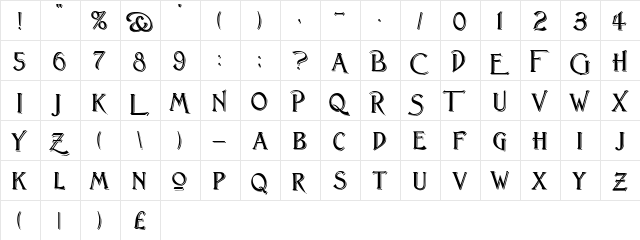
Lightfoot Shadowed Regular Font Preview
Lightfoot Shadowed Regular
Lightfoot Shadowed Regular Font Details
Design Context for Lightfoot Shadowed Typeface
Lightfoot Shadowed brings ornamental detail and strong personality to headlines and identities, where visual impact matters more than quiet functionality. The delicate stroke weight brings airiness and refinement to layouts.
Font Pairing: Pair with a clean neutral sans-serif for body copy to let Lightfoot Shadowed's character lead without overwhelming the composition.
Pro Tip: Use Lightfoot Shadowed exclusively at display sizes — it was designed to be seen, not read at length. Let a neutral companion handle body copy.